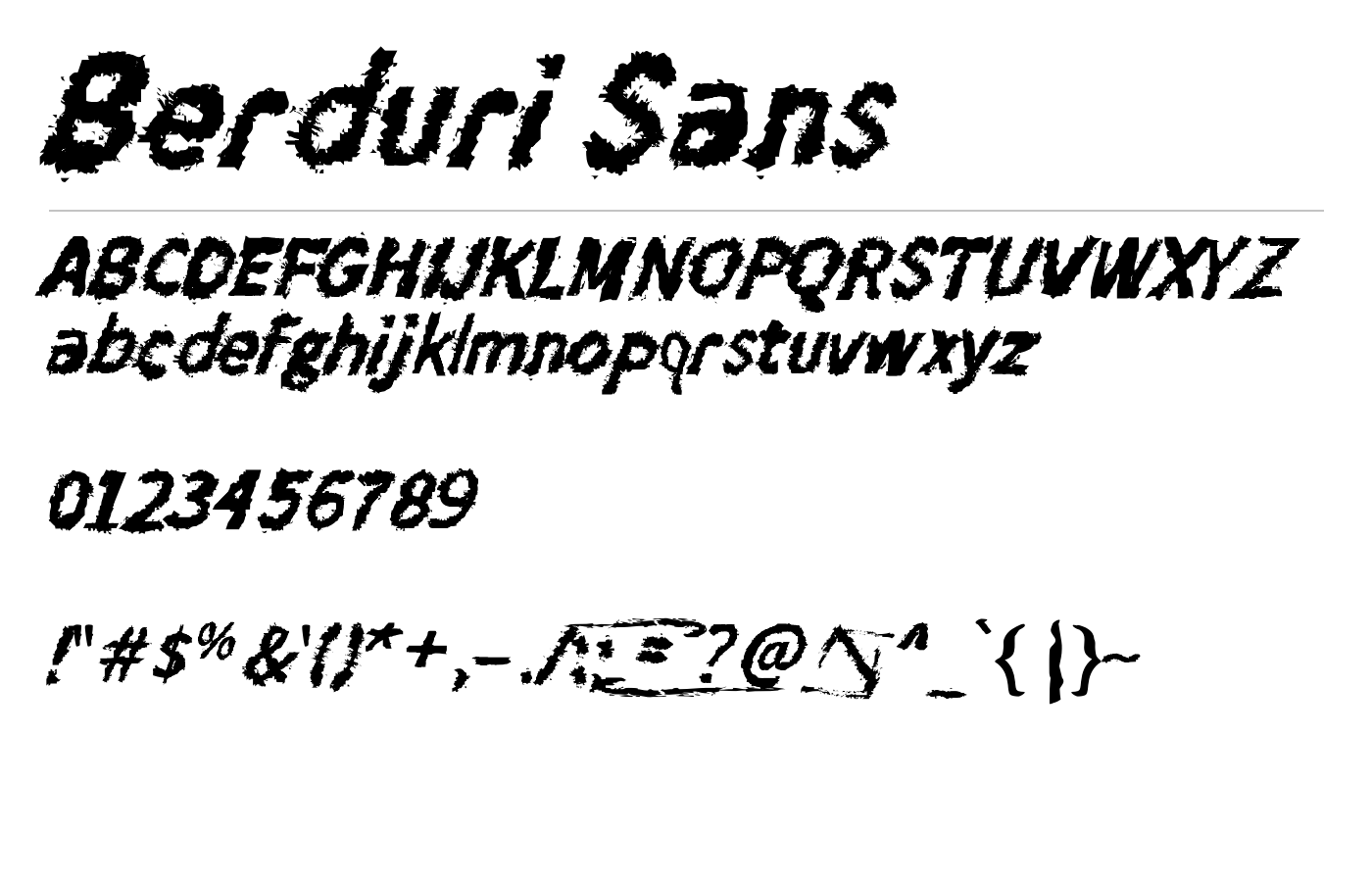
Berduri Sans is a bold, condensed sans serif font with a distinct rough, textured edge that gives it a dynamic and energetic feel. Its irregular, jagged stroke style and slightly slanted orientation add a sense of movement and uniqueness, making it ideal for attention-grabbing headlines, posters, and edgy branding. This font works well where a modern, unconventional, and impactful look is desired.
Berduri Sans Font
About Berduri Sans Font